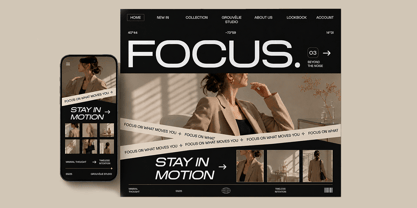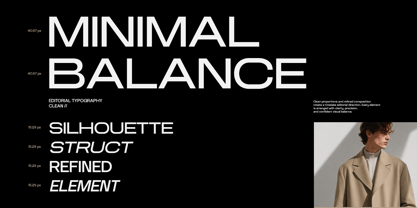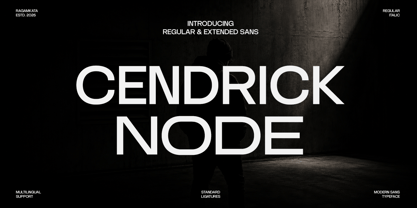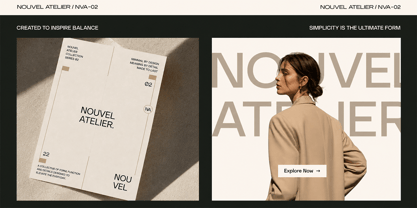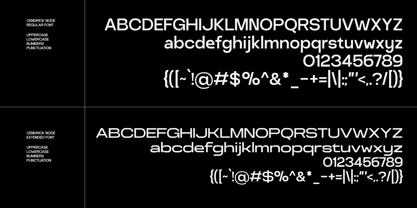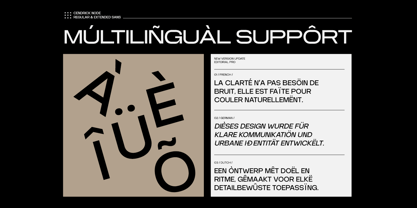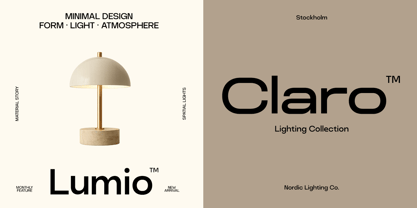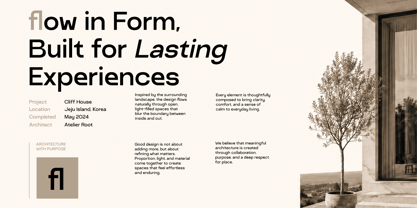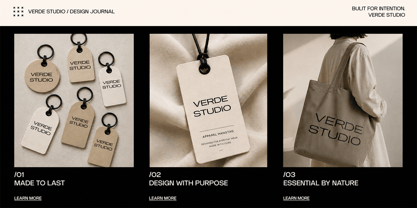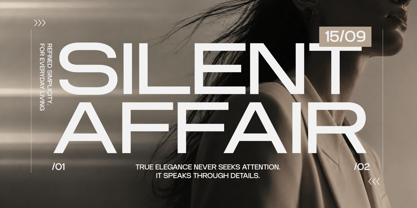
Cendrick Node
Die Schriftfamilie Cendrick Node wurde von Yogiswhara Dio Prakoso Riadi entworfen und von RagamKata veröffentlicht. Cendrick Node enthält 4 Stile und Familienpaketoptionen. Mehr über diese Familie
Introducing Cendrick Node, a refined modern duo font that pairs a clean geometric sans with a striking extended display typeface. Designed for creators who appreciate balance, clarity, and sophisticated aesthetics, this versatile combination delivers effortless elegance across every design. Whether you're building a luxury brand identity or crafting a contemporary editorial layout, this font duo creates a premium visual experience with strong personality.
The minimalist construction and carefully balanced proportions make this duo ideal for branding, fashion campaigns, magazines, websites, packaging, cosmetics, architecture, interior design, and premium lifestyle products. The display style adds bold visual impact, while the companion sans provides exceptional readability, making them perfect together for headlines, logos, subheadings, and body text.
Whether you're designing lookbooks, social media content, luxury advertising, creative portfolios, presentations, or high-end marketing materials, Cendrick Node offers the flexibility to create timeless, modern compositions that feel clean, elegant, and confidently professional.
• Regular and Italic Style
• Extended and Italic Extended
• Uppercase and Lowercase
• Number, Symbol, and Punctuation
• Multilingual Support